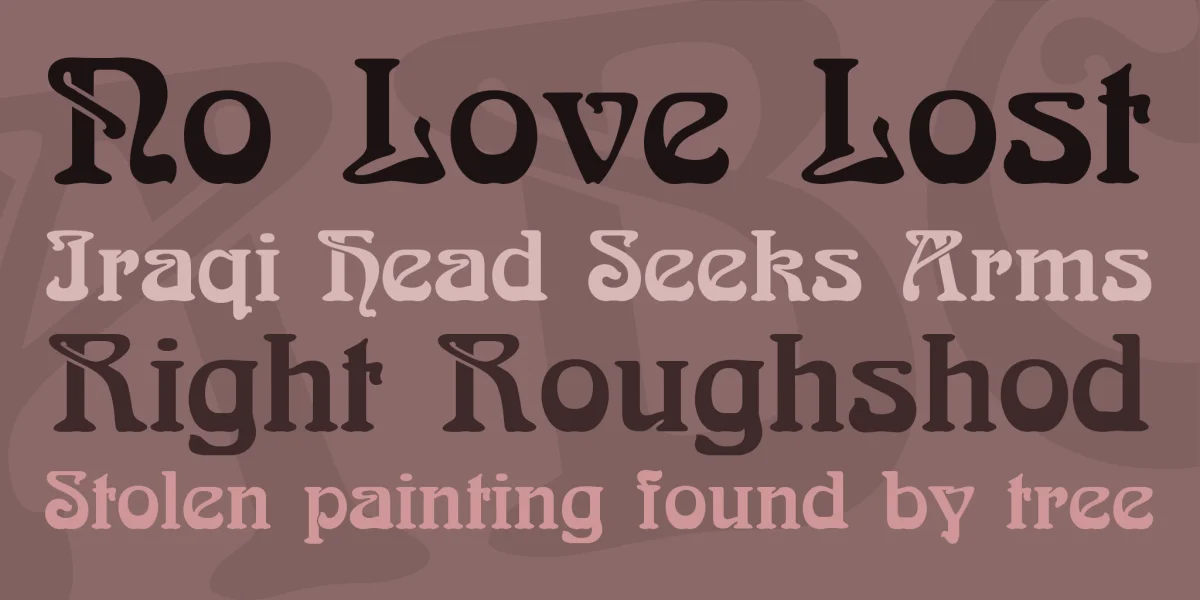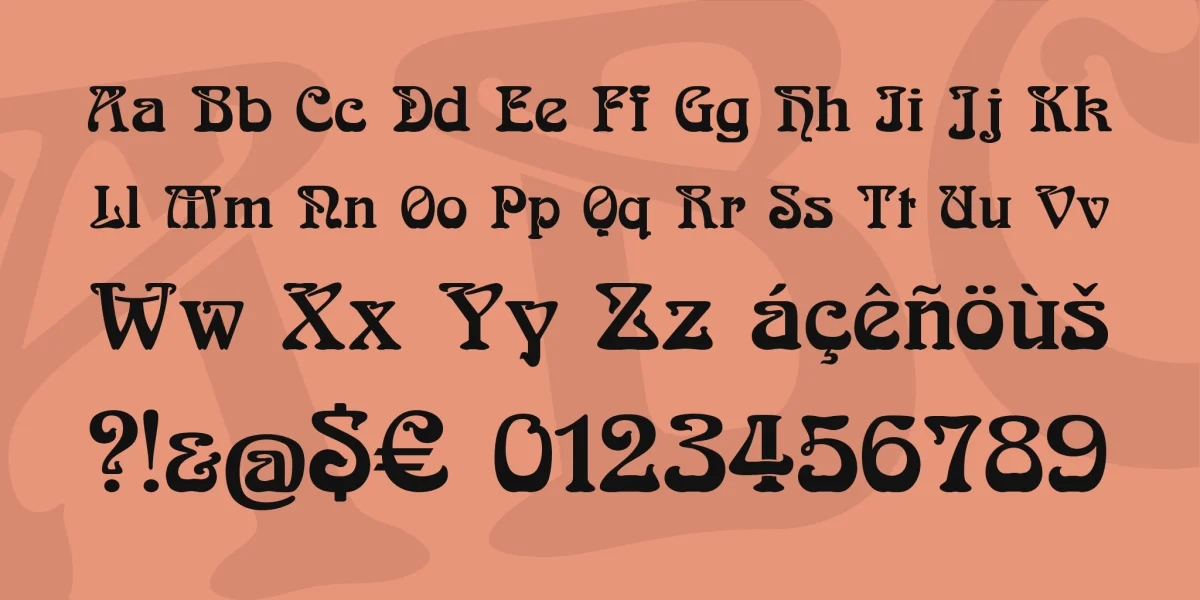
Arnold Böcklin is a font that was designed by the Otto Weisert foundry in Stuttgart in 1904. The font is named after the Swiss symbolist painter Arnold Böcklin, who died in 1901.
The Arnold Bocklin is the most famous Art Nouveau font, it is characterized by floral forms of Art Nouveau. The font was created for use in large font sizes. Here the decorative appearance was more important than readability.
The writing had a great significance for the book design of Art Nouveau. Experienced a renaissance in the writing of the 1960s and 1970s, when Art Nouveau style became fashionable again. They also influenced the illustrations by British artist Roger Dean, as well as more recently the work of the Stuckists Paul Harvey (born 1960). As a variant of Arnold Böcklin is included in the software package CorelDRAW Graphics Suite under the name "Arabia" was and is the font used widely in connection with the Orient and the Middle East, although it actually has nothing in common with the calligraphy of Arabic fonts.
Owner of the trademark "Arnold Böcklin" for this font is Linotype type foundry, but many manufacturers have their own font Vesionen among other Namem in the program. Adobe's OpenType version of the font supports ISO Adobe 2, Adobe CE and Latin Extended character sets.
But I told myself that you can still beat, and in my Böcklöins Universe really ALL Latin extensions, including phonetics, Africa alphabet, Vietnamese and UNZ1 ligatures, as well as probably the first time a truly complete Cyrillic character set, including all extensions created. Also a complete Greek character set, include all extensions is included!